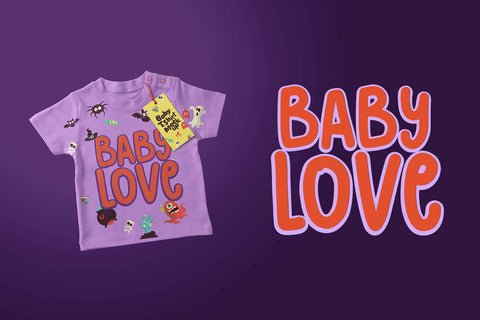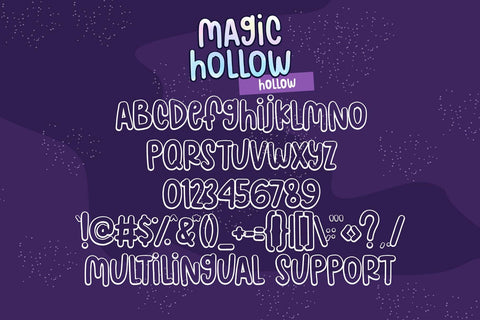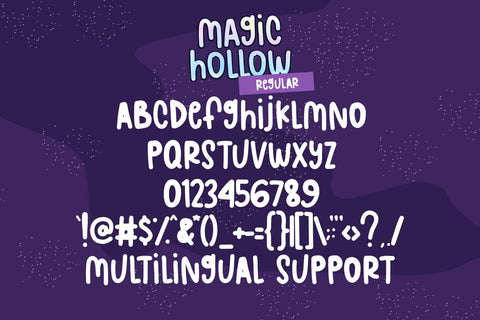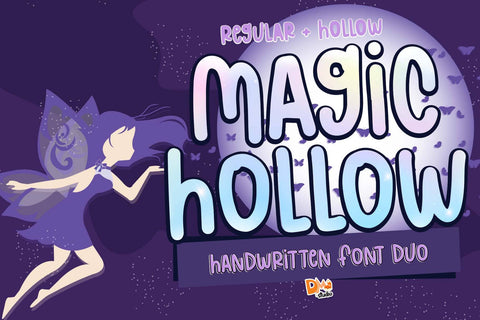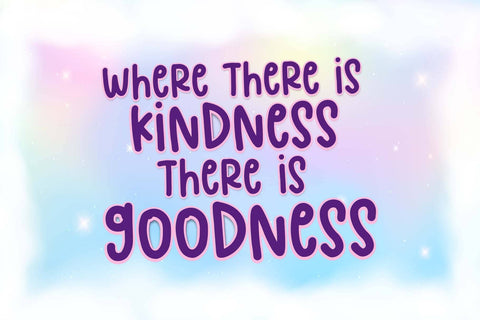
Magic Hollow Font
Magic Hollow Font is a enchanting and versatile typeface that adds a touch of magic and mystery to your design projects. With its whimsical letterforms and mystical aura, this font is perfect for creating spellbinding designs, fantasy-themed invitations, merchandise, and more.
- Enchanting Design: The Magic Hollow Font features spellbinding letterforms that evoke a sense of magic and fantasy. Its unique and intricate characters bring an enchanting quality to your text.
- Versatility in Usage: This font is crafted to be versatile, suitable for a variety of projects, including branding, merchandise, social media graphics, and fantasy-themed designs.
- Fantasy Designs: Create captivating designs for fantasy novels, book covers, and merchandise that transport audiences to magical realms.
- Invitations and Stationery: Craft spellbinding invitations and stationery for events such as themed parties, weddings, or mystical gatherings.
- Branding: Add a touch of magic to your brand with this unique font. Perfect for businesses with a whimsical or fantasy theme.
- Social Media Graphics: Use the font to create attention-grabbing and magical posts on social media platforms.
- Merchandise: Design merchandise such as t-shirts, mugs, and posters that carry the enchanting essence of the Magic Hollow Font.